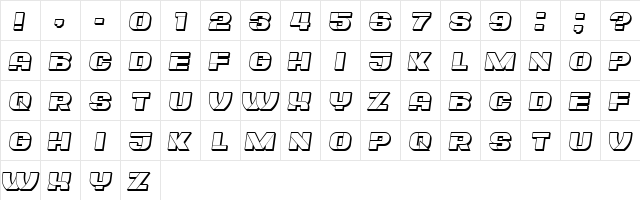
Plagiat Hollow Italic
Design Context for Plagiat Hollow Typeface
Plagiat Hollow takes a measured approach to typography — its balanced proportions and neutral character make it a reliable workhorse for both digital and print work. Its italic angle brings a sense of urgency and motion to the letterforms.